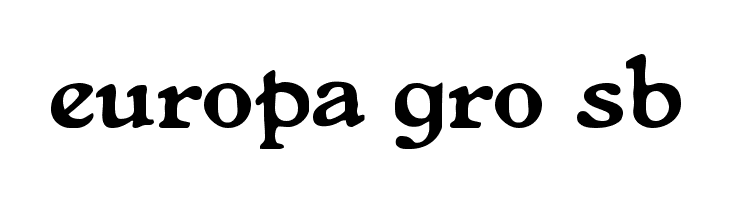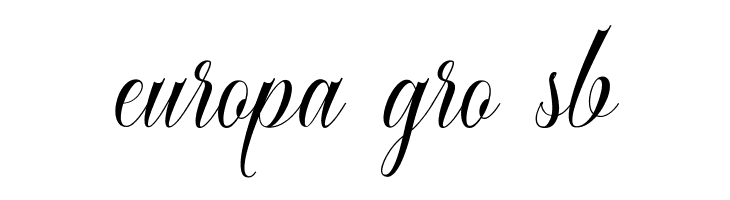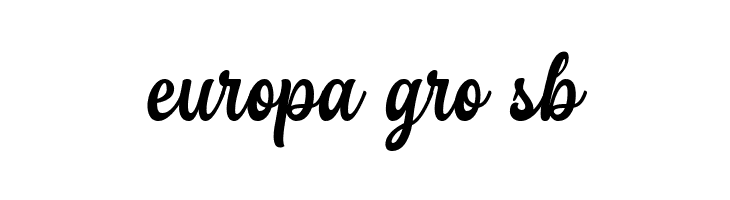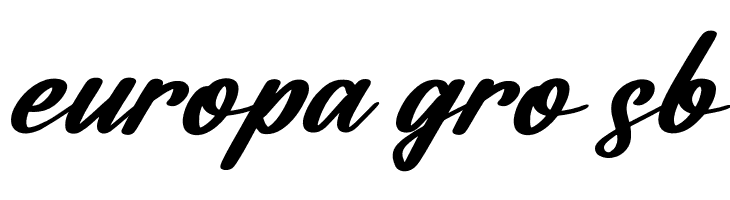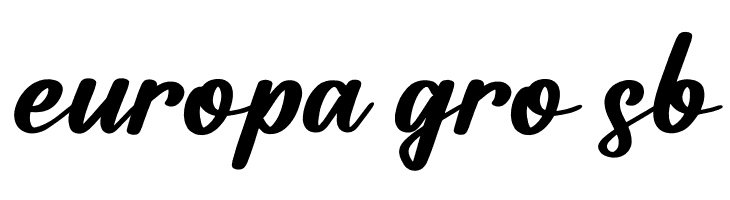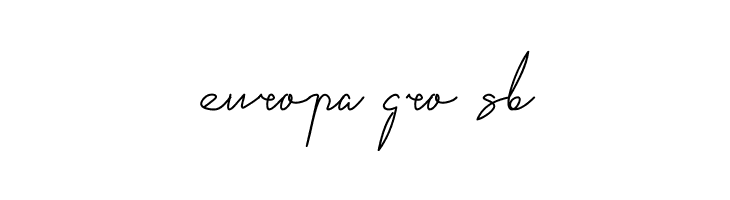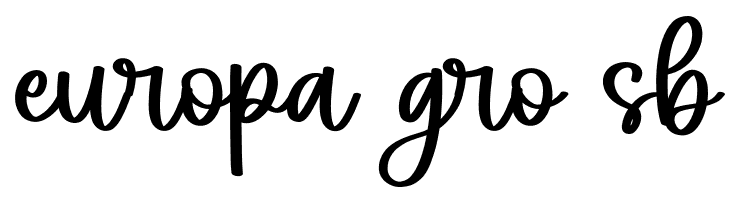
An elegant script font with high contrast and ornate flourishes.
A bold, expressive script font with fluid, cursive strokes and dynamic flow.
A dynamic and flowing script font with elegant cursive letterforms.
A playful and elegant script font with flowing, cursive letters.
A graceful script font with flowing, interconnected letters and high contrast strokes.
A classic blackletter font with intricate, ornate letterforms and decorative flourishes.
A bold, high-contrast font with a vintage yet modern flair.
A flowing, cursive font with elegant, interconnected characters.
A bold, dynamic font with a modern-vintage flair and sweeping strokes.